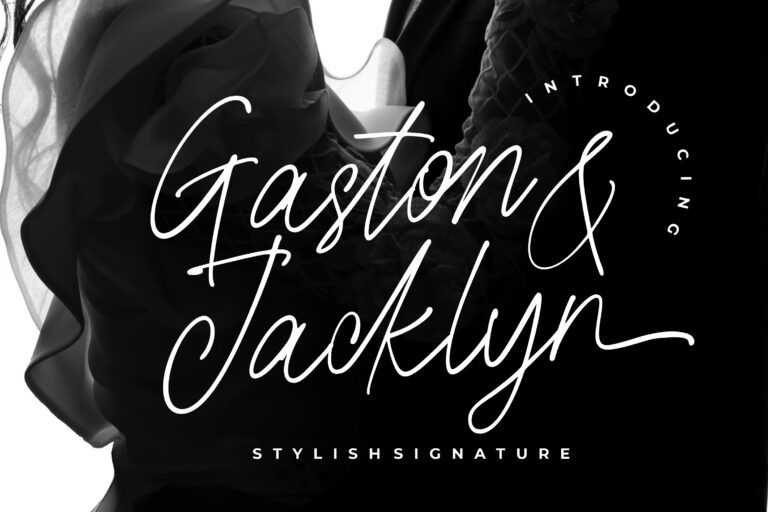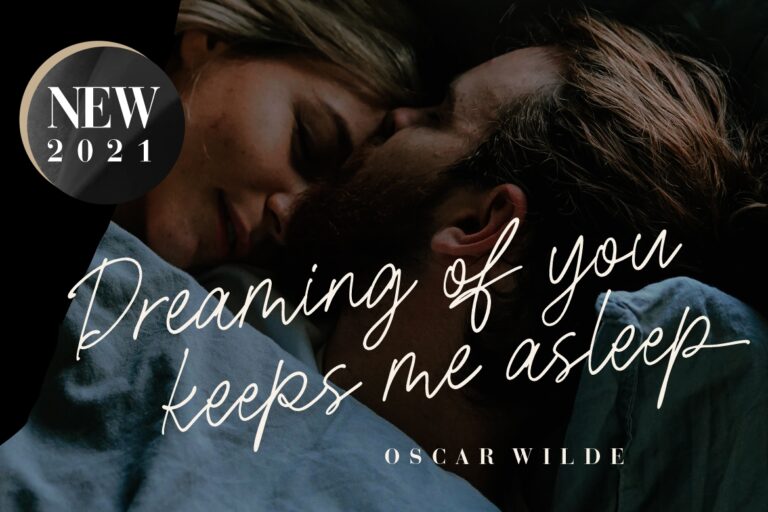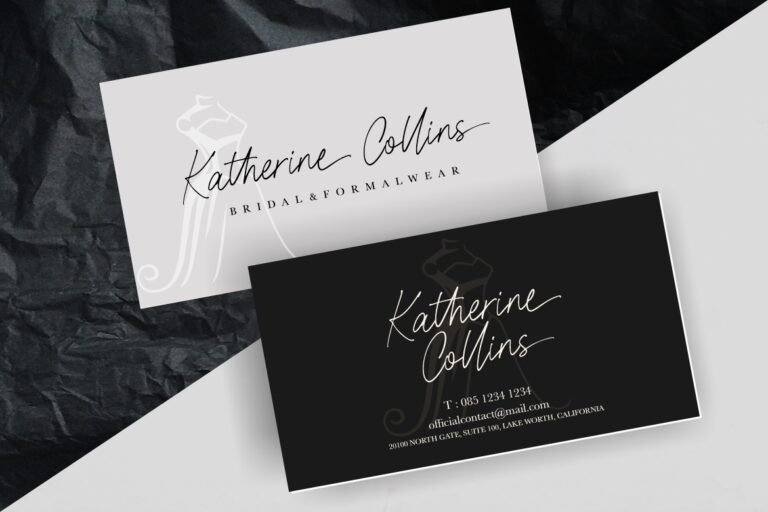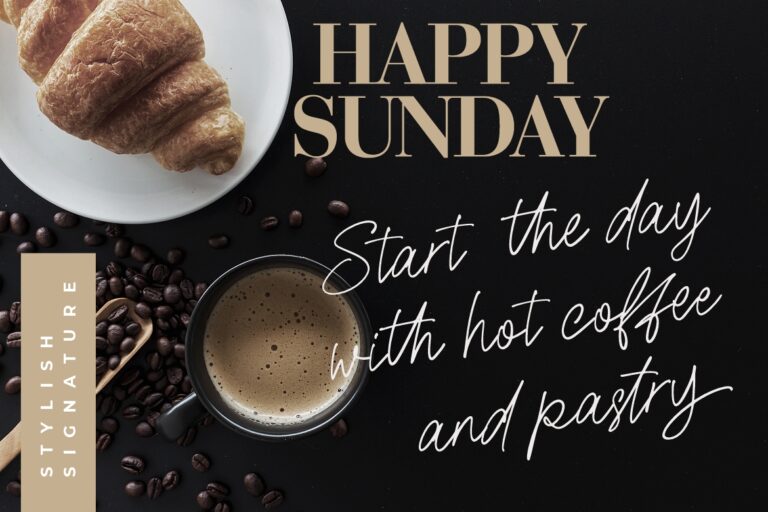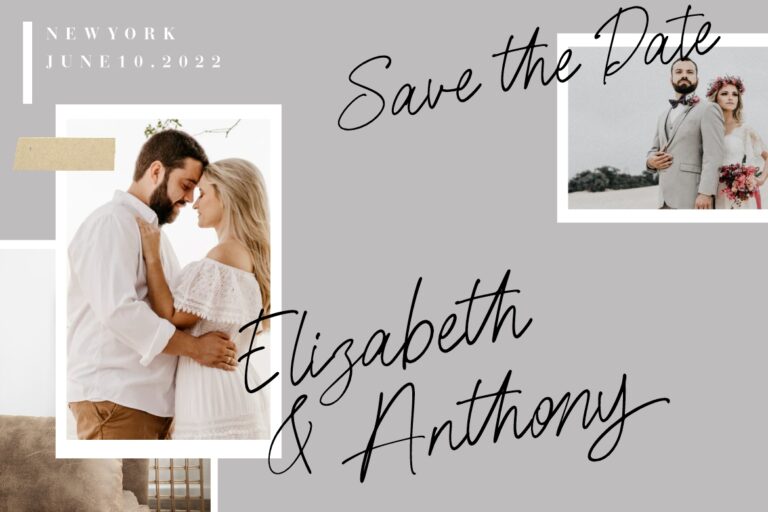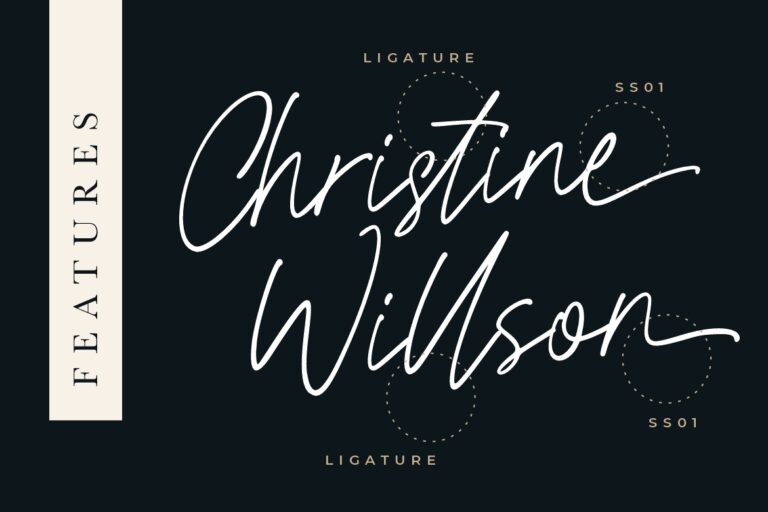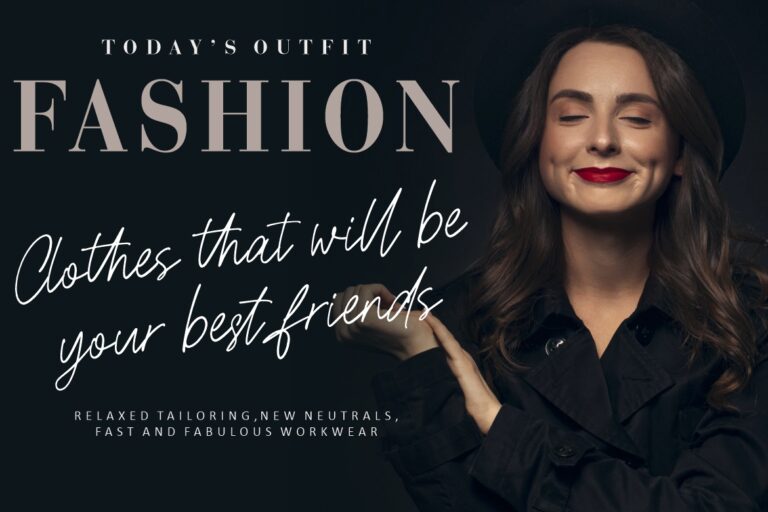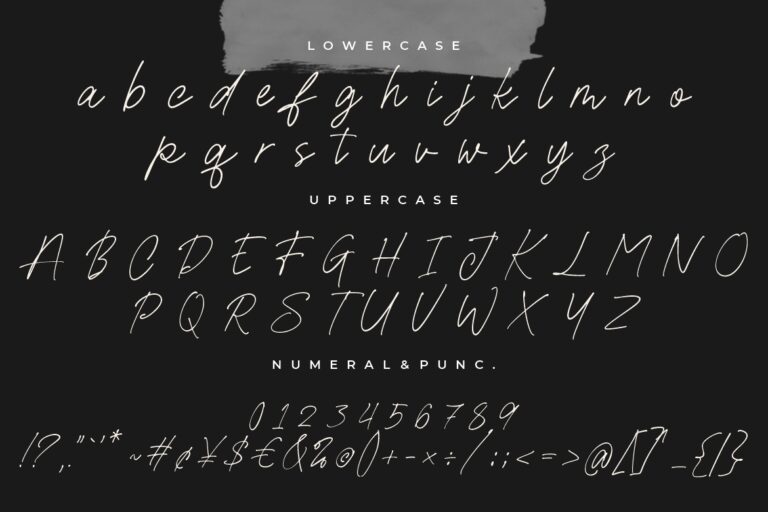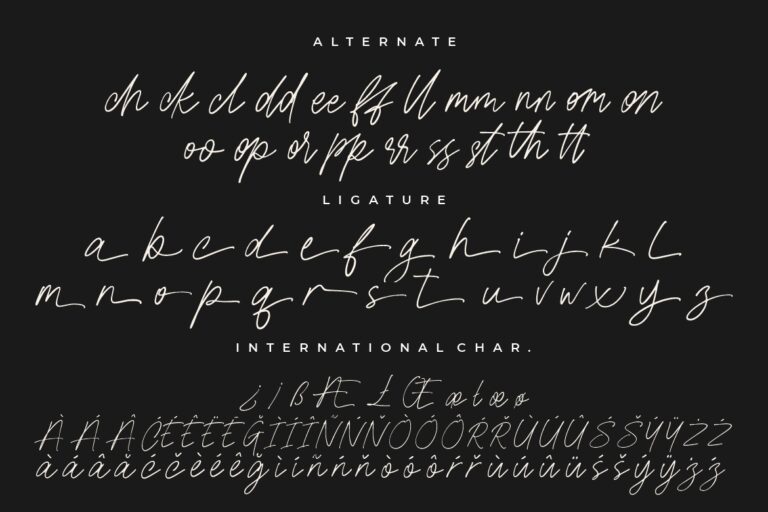
Gaston & Jacklyn Stylish Signature
Gaston & Jacklyn is a stylish signature font that looks very elegant and classy.
Gaston & Jacklyn is perfect for branding projects, logo, wedding designs, social media posts, advertisements, product packaging, product designs, label, photography, watermark, invitation, stationery and any projects that need handwriting taste.
- Ton of glyphs
- Ligature & Alternate